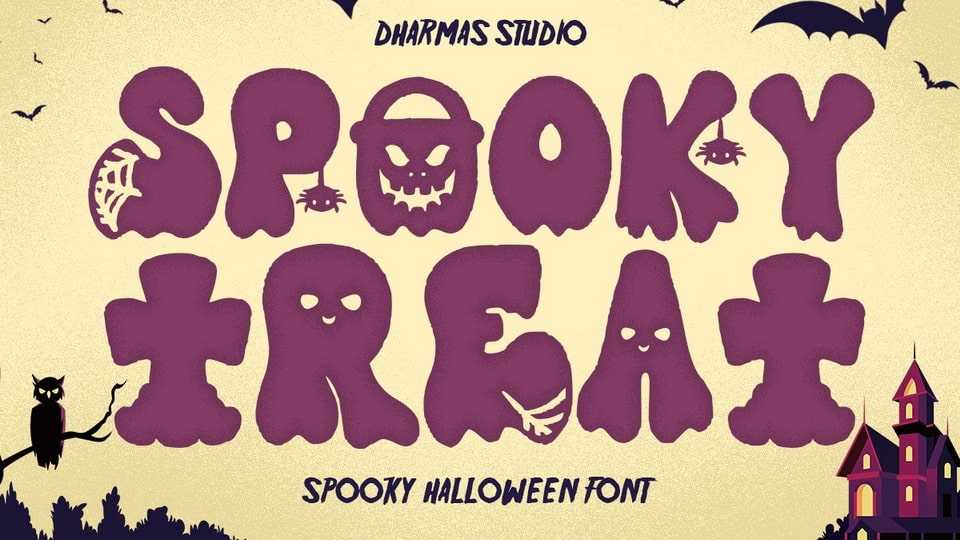
Spooky Treat Font › Fontesk – Download Grátis
Download Spooky Treat font, the ultimate Halloween typeface with a haunting dripping effect, complete with ghostly elements, spiders, and cobwebs.